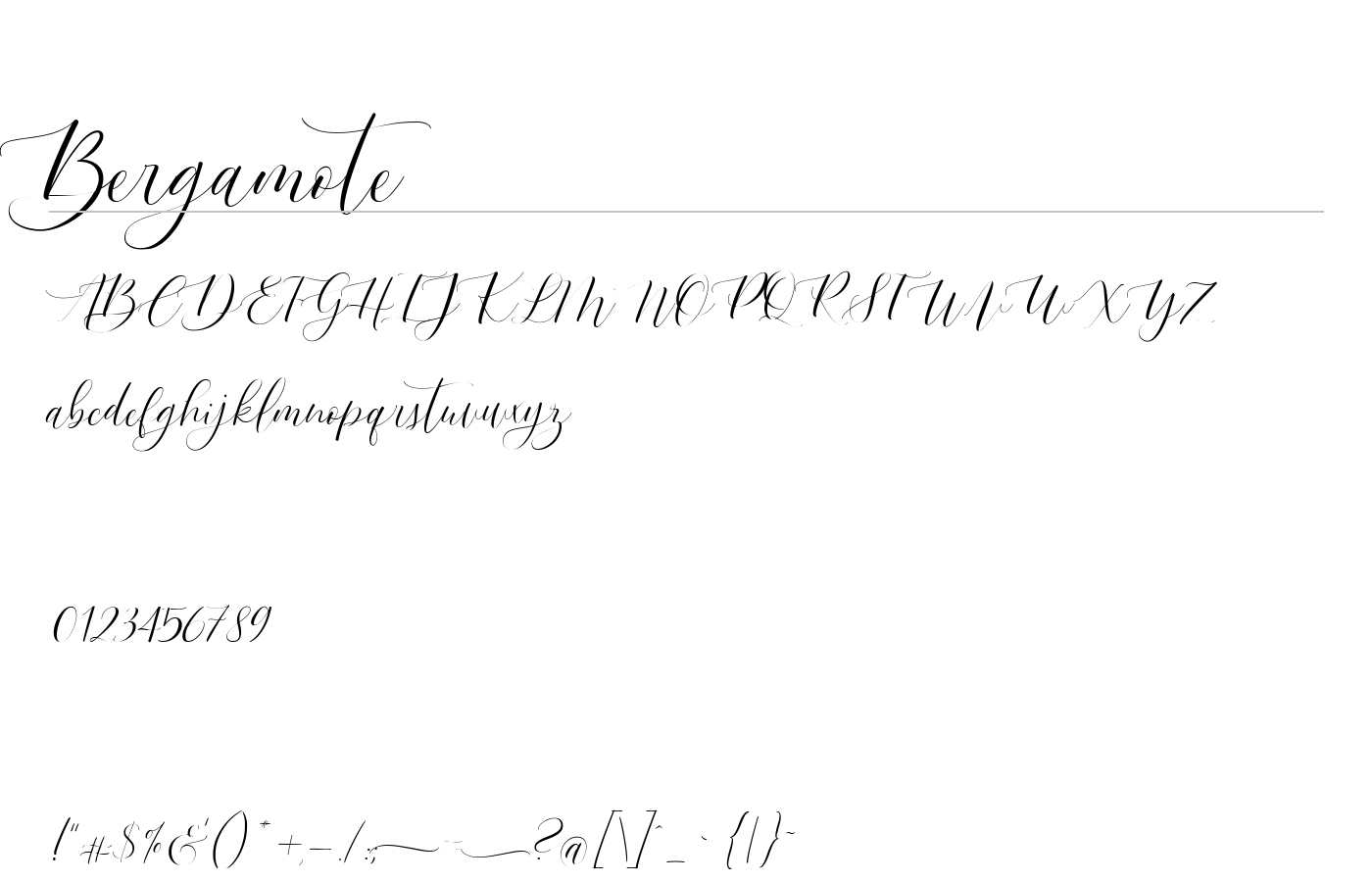
Bergamote is an elegant, thin script font with delicate, flowing strokes that give it a refined and sophisticated character. Its high contrast between thick and thin lines, combined with graceful swashes and smooth curves, makes it perfect for luxury branding, wedding invitations, and upscale editorial design. This font’s light, airy feel adds a romantic and artistic touch, making it ideal for projects that seek to convey elegance and charm.
Bergamote Font
About Bergamote Font
| Font family | Bergamote Font |
| Designer | Clément Nicolle |